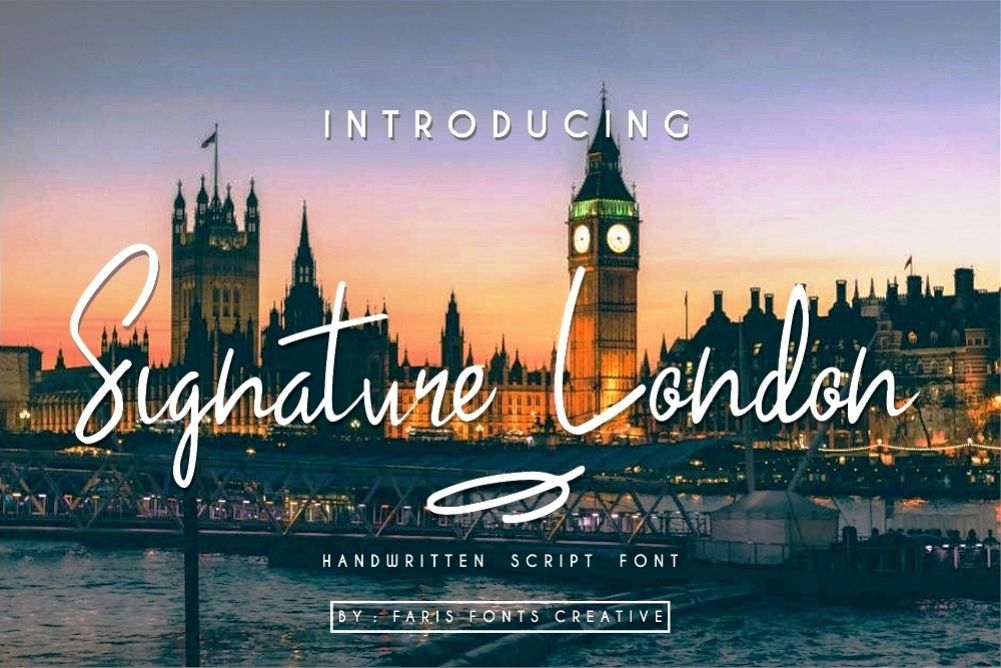
Signature London
Signature London is signature font that has slender and chic
feeling, and it works perfectly in all sort of photo, design projects like
fashion, wedding,  branding, and more.
Signature London Complete with :
- Alternate
- Numerals
- Swash
Also You can use Signature London for logotype, headline,
instagram post, greeting cards, invitations, posters, book covers, banners,